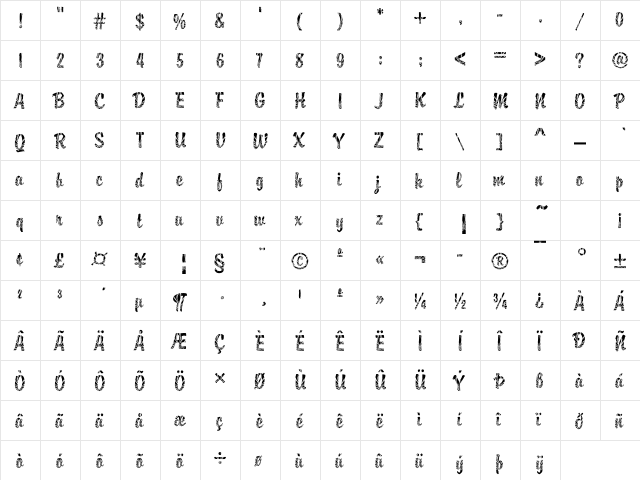
DTCBrodyM35 Regular
Design Context for DTCBrodyM35 Typeface
DTCBrodyM35 is a composed and adaptable typeface that performs quietly and consistently across a wide range of design contexts.